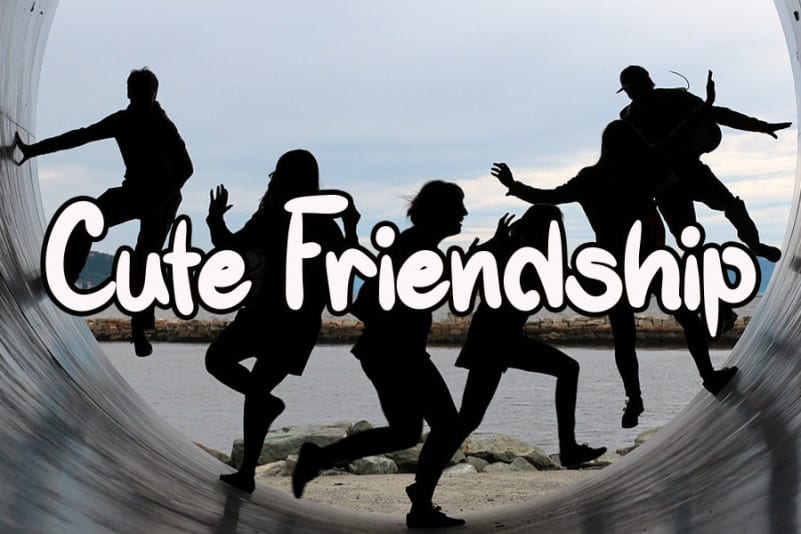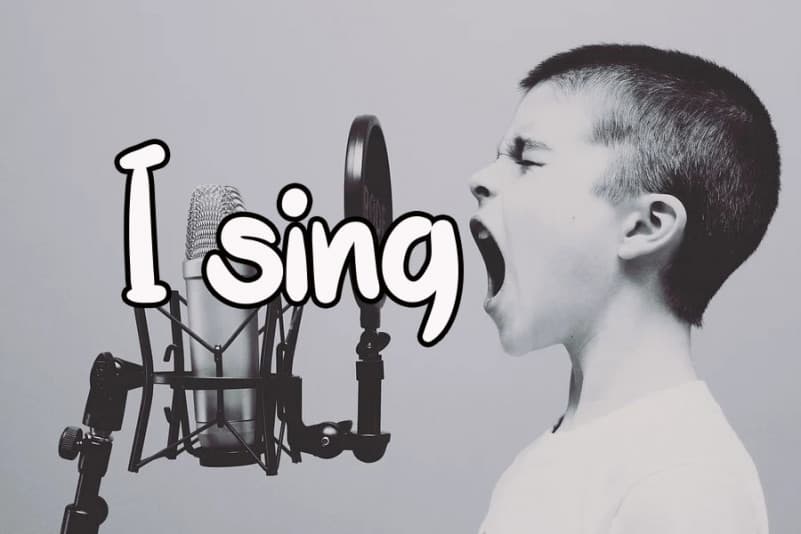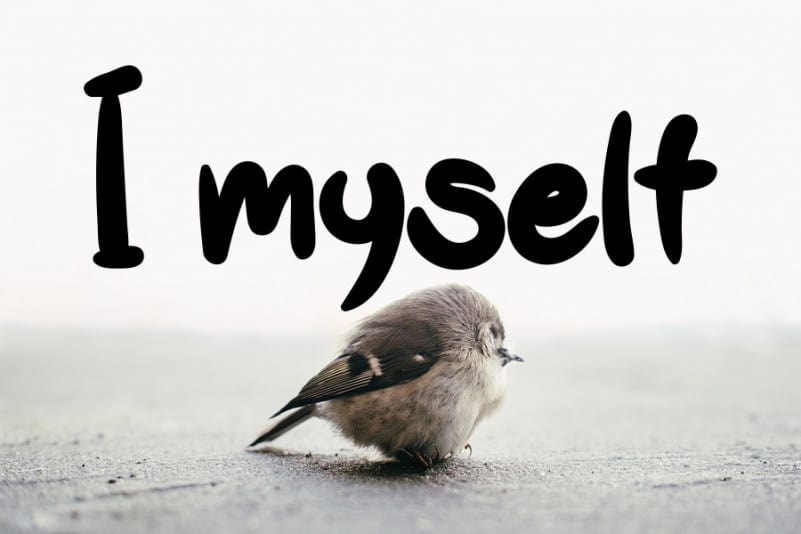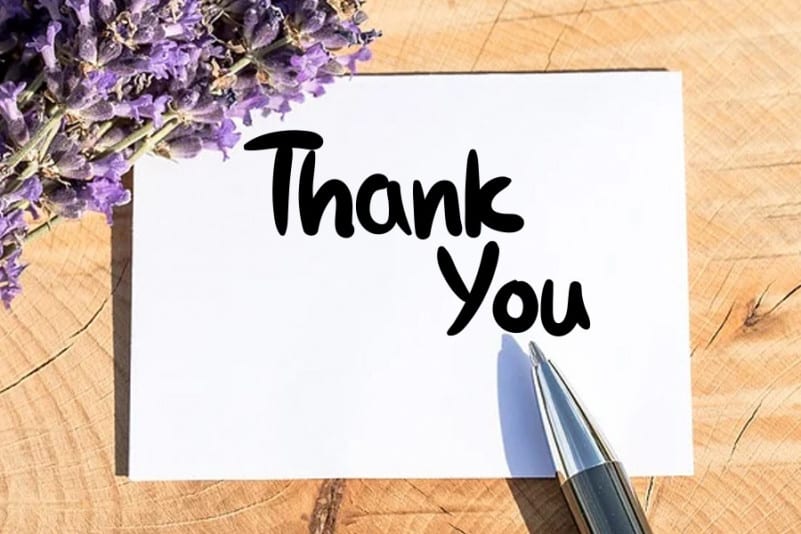
Amusing Display Font
Amusing Display Font is a simple, relaxed and asymmetrical handwritten font. Incredibly versatile, this font fits a wide pool of designs, elevating them to the highest levels.
Amusing Display Font is a very talented product for you to use,
Latest letters that can be used for various products, invitations, wall hangings, weddings, and more.